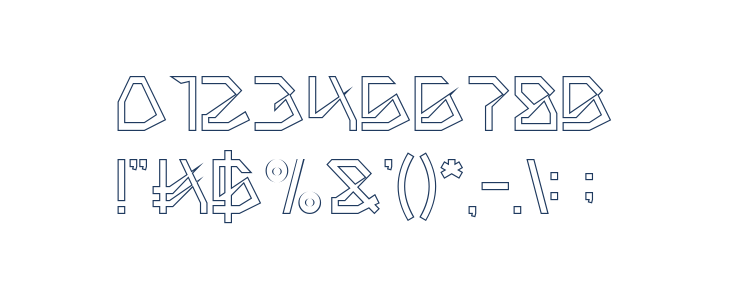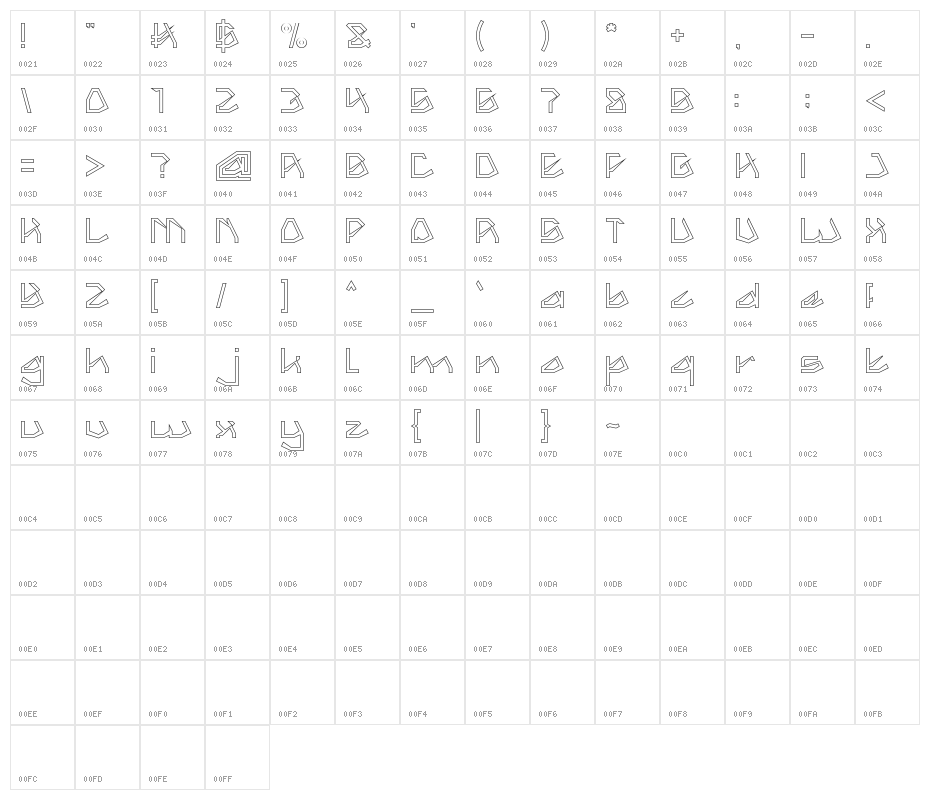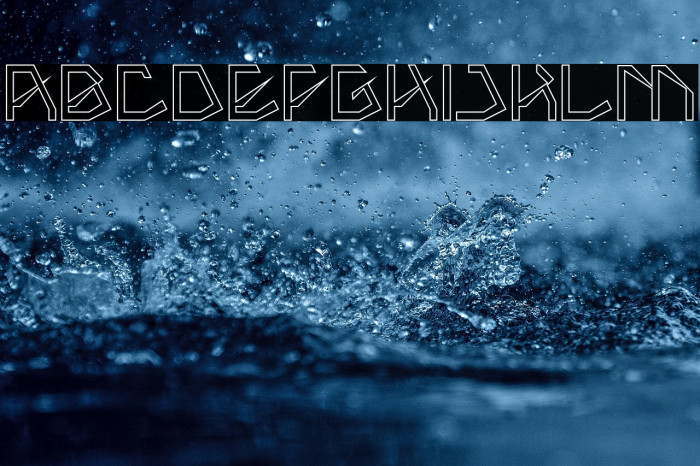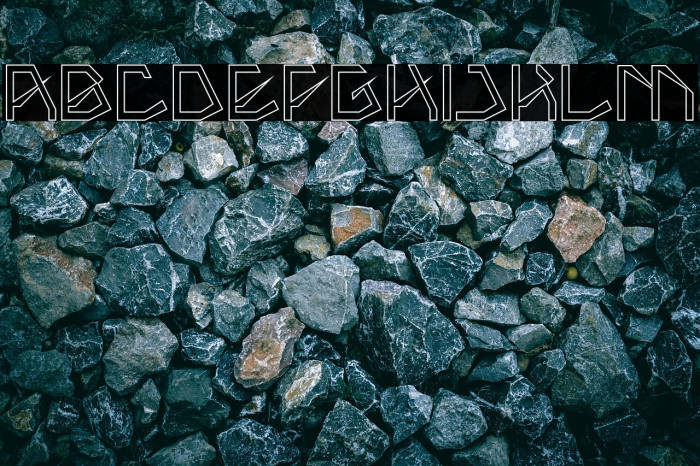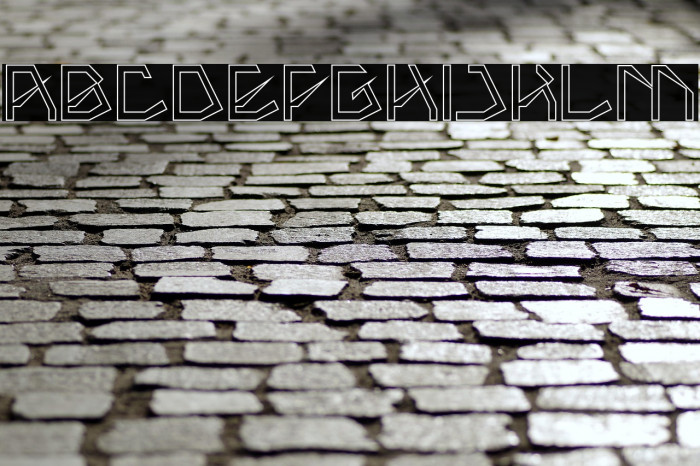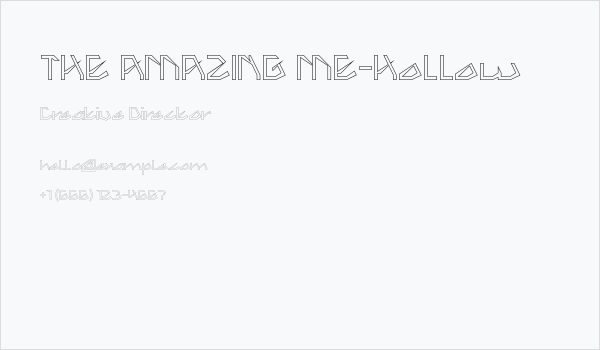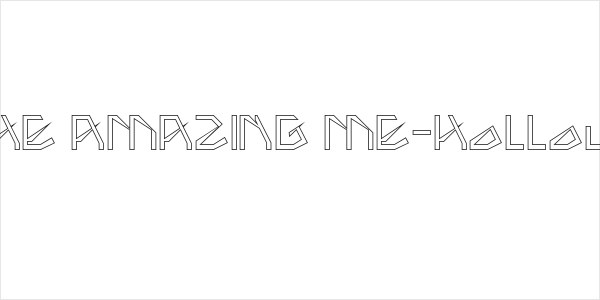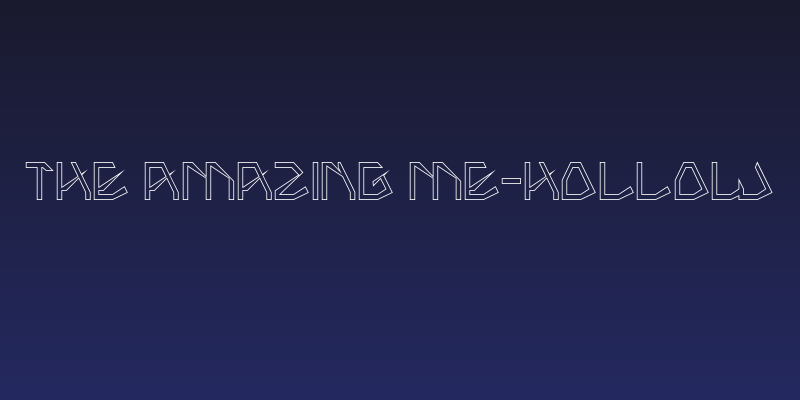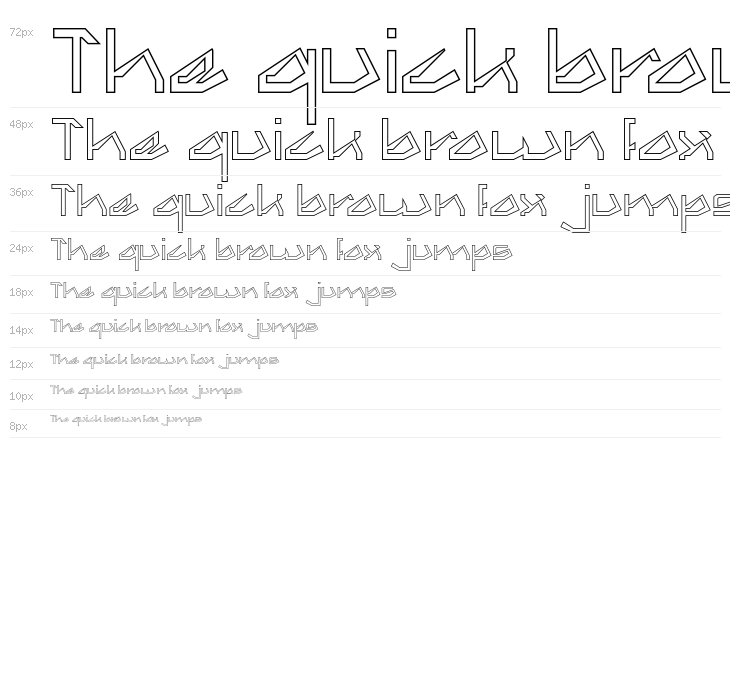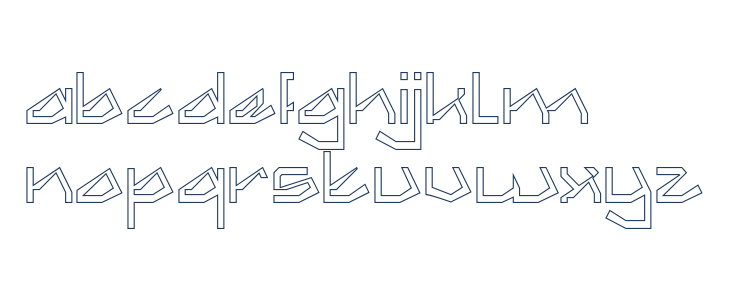
THE AMAZING ME-Hollow Font
THE AMAZING ME-Hollow Description
This font features a unique hollow design with a geometric and angular structure. Each character is outlined, creating a three-dimensional effect that adds depth and intrigue. The uppercase and lowercase letters maintain a consistent style, with sharp angles and clean lines. Numbers and special characters follow the same design principles, ensuring uniformity across all elements. The font's modern and futuristic appearance makes it stand out, while its hollow nature allows for creative layering and color play in design projects.